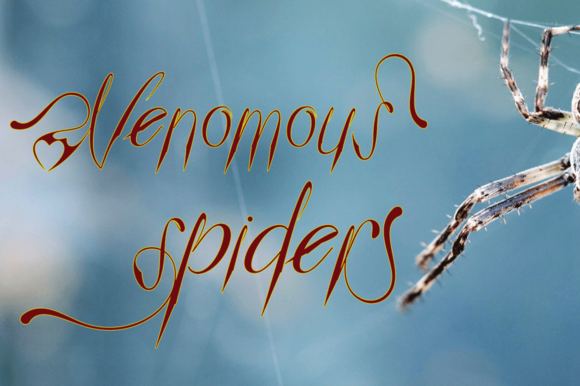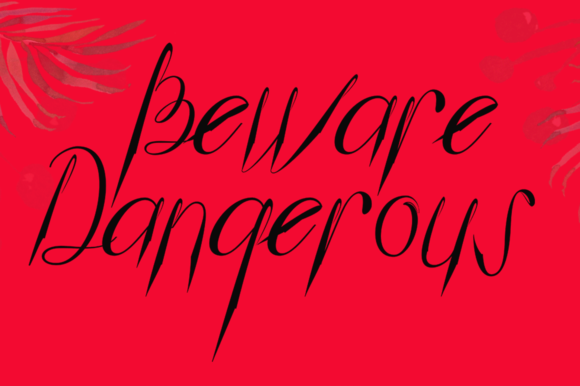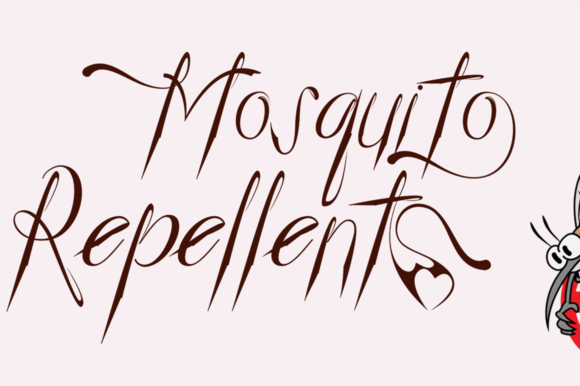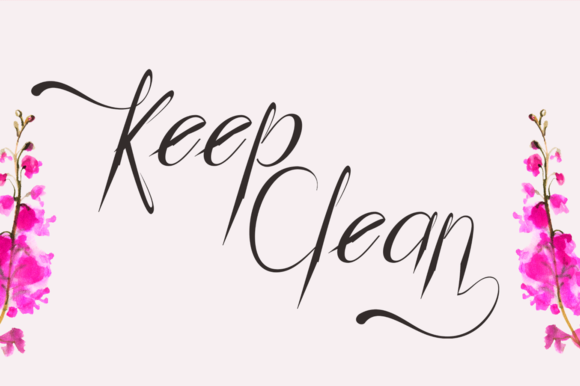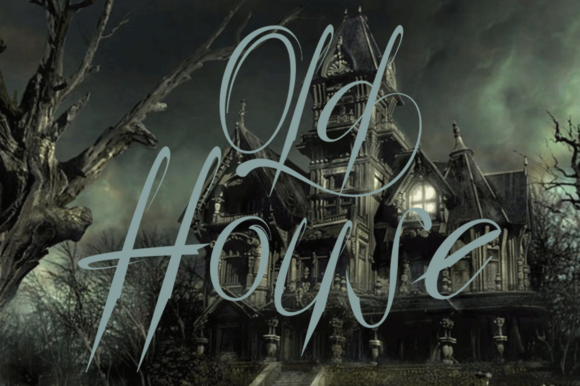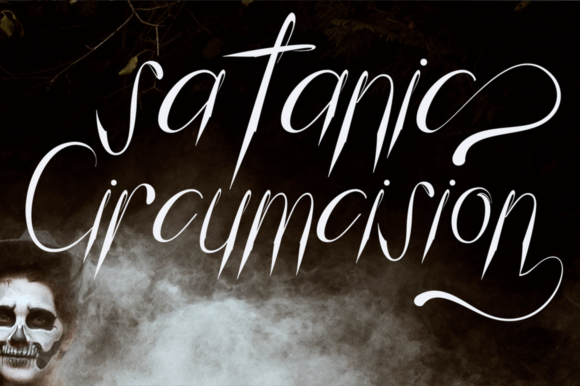
Dread Font: Elevate Your Design with Elegant Handwritten Style
Are you looking for a font that adds a touch of elegance and delicacy to your design projects? Look no further than the Dread Font, a beautiful handwritten font that features sweet and delicate swashes. With its original look and versatile style, Dread is perfect for a wide range of crafty ideas, from letterheads and titles to stationery and more.
What is Dread Font?
Dread Font is a carefully crafted handwritten font that boasts an elegant and dainty appearance. Its unique design features sweet and delicate swashes that add a touch of sophistication to any design project. Whether you’re a designer, crafter, or DIY enthusiast, Dread Font is an excellent choice for anyone looking to add a personal touch to their work.
Key Features of Dread Font
- Elegant and Dainty Design: Dread Font features a beautiful, handwritten design that is both elegant and dainty.
- Sweet and Delicate Swashes: The font’s sweet and delicate swashes add a touch of sophistication to any design project.
- Versatile Style: Dread Font is perfect for a wide range of crafty ideas, from letterheads and titles to stationery and more.
- Original Look: The font’s original look will appeal to designers and crafters looking for a unique and distinctive style.
Uses for Dread Font
Dread Font is an incredibly versatile font that can be used for a wide range of design projects. Here are some ideas to get you started:
- Letterheads and Titles: Use Dread Font to create elegant and sophisticated letterheads and titles for your business or personal projects.
- Stationery: Add a touch of elegance to your stationery with Dread Font, perfect for creating beautiful greeting cards, invitations, and more.
- Branding and Packaging: Use Dread Font to create unique and eye-catching branding and packaging for your products.
- Digital Design: Dread Font is perfect for digital design projects, including social media graphics, blog posts, and more.
Why Choose Dread Font?
There are many fonts available that claim to offer an elegant and handwritten style, but Dread Font stands out from the crowd. Here are just a few reasons why:
- Unique Design: Dread Font features a unique and original design that will set your projects apart from the rest.
- Elegant and Dainty: The font’s elegant and dainty design makes it perfect for projects that require a touch of sophistication.
- Easy to Read: Despite its elegant design, Dread Font is easy to read and understand, making it perfect for body text and headings.
Tips for Using Dread Font
To get the most out of Dread Font, here are a few tips to keep in mind:
- Use it Sparingly: Dread Font is a elegant and sophisticated font, so use it sparingly to avoid overwhelming your design.
- Pair it with Other Fonts: Dread Font pairs well with other fonts, so don’t be afraid to experiment with different combinations.
- Adjust the Size and Style: Experiment with different sizes and styles to find the perfect look for your project.
| Font Name | Dread Font |
| Author | Nandatype |
Dread Font is a beautiful and elegant handwritten font that features sweet and delicate swashes. With its original look and versatile style, it’s perfect for a wide range of crafty ideas, from letterheads and titles to stationery and more. Whether you’re a designer, crafter, or DIY enthusiast, Dread Font is an excellent choice for anyone looking to add a personal touch to their work.